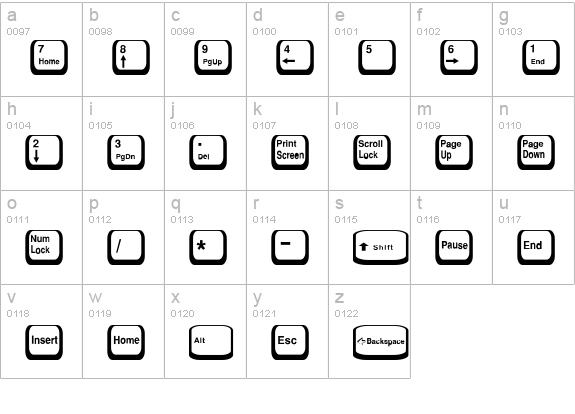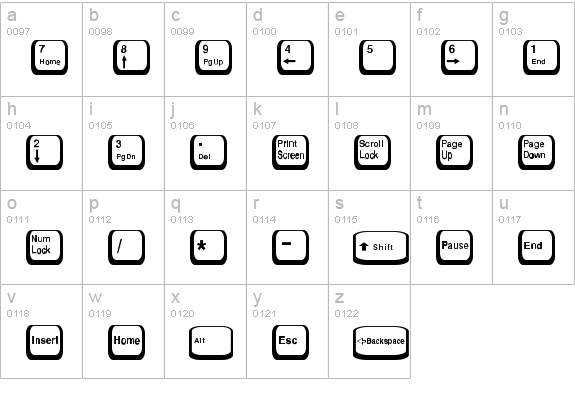
Introducing Key-Top, a beautifully designed font that will elevate your typography game to new heights. With its sleek and modern appearance, Key-Top is the perfect choice for any project that requires a touch of sophistication and elegance. But what sets Key-Top apart from other fonts is its incredible value - it's absolutely free! Yes, you read that right. This stunning font is freely available to download at FontsMarket.com. Now you can enjoy the benefits of a high-quality, professionally crafted font without breaking the bank. Key-Top is not just visually pleasing, but also highly versatile. Its clean lines and balanced proportions make it suitable for a wide range of applications, from branding and logo design to website headers and print materials. Whether you're a professional designer or a DIY enthusiast, Key-Top will effortlessly add a touch of class to your projects. The attention to detail in Key-Top is truly remarkable. Each letter is meticulously crafted to ensure maximum legibility and aesthetic appeal. Additionally, the font includes a wide array of special characters and ligatures, allowing you to unleash your creativity and create unique and eye-catching designs. Downloading Key-Top is a breeze. Simply head over to FontsMarket.com and access this gem of a font with just a few clicks. Once you have it in your arsenal, you'll wonder how you ever lived without it. So why wait? Elevate your design game today with Key-Top - the free font that delivers both style and substance. Download it now and see the difference it can make in your projects.